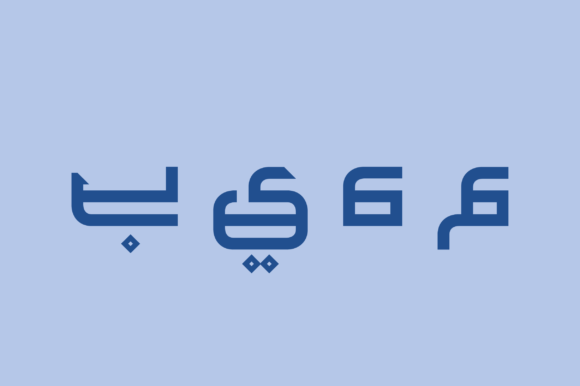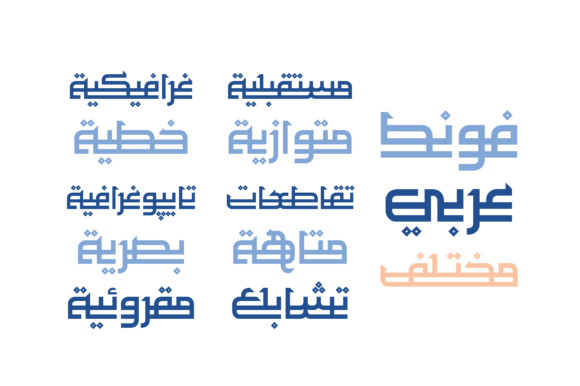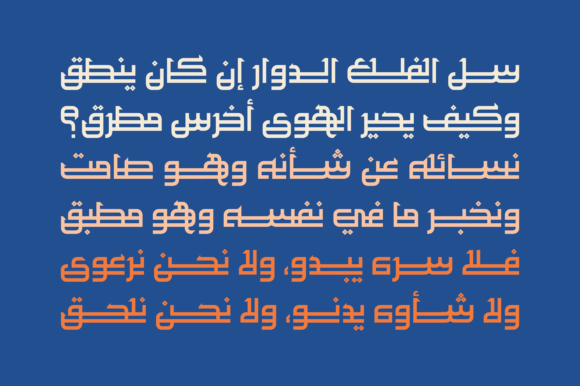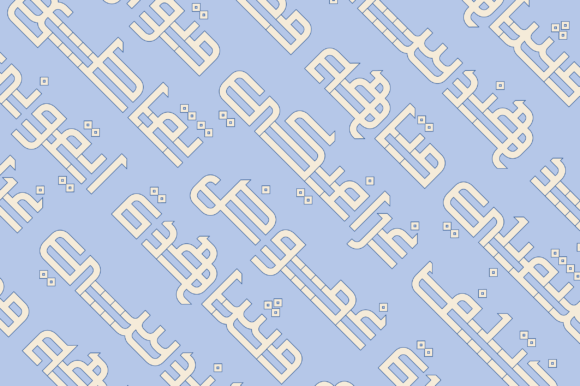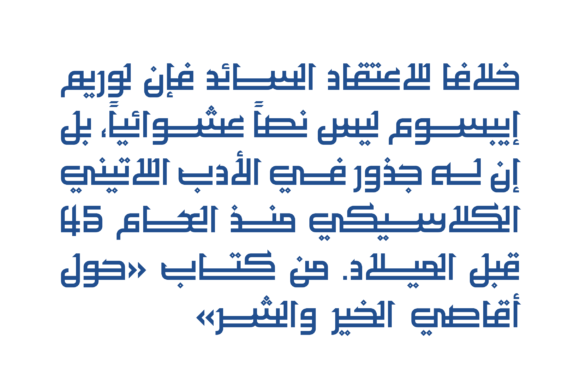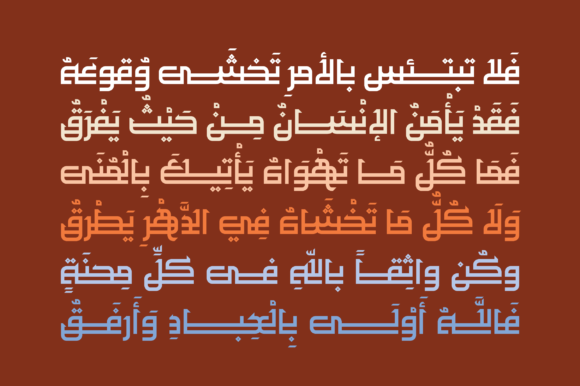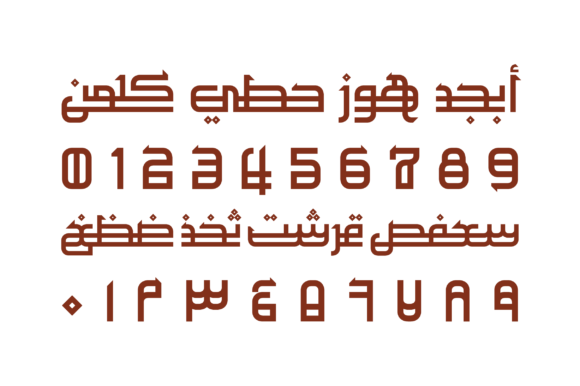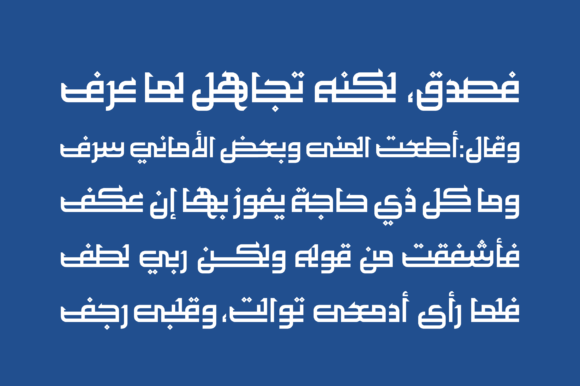
Maheeb (Arabic Font) Font
Maheeb, derived from the Arabic word for “Majestic,” is an exquisite Arabic display font that showcases the beauty of the Arabic script. With its dual baselines and carefully crafted letterforms, Maheeb captures attention and adds a touch of grandeur to any design.
The design of Maheeb is rooted in proportional letterforms with sharp terminals, resulting in a visually striking and harmonious typeface. The dual baselines add an interesting dynamic to the font, creating a sense of movement and elegance. This unique feature makes Maheeb particularly suitable for eye-catching headlines, titles, and decorative purposes.
The versatility of Maheeb allows it to be used across various applications. Whether it’s in print materials like posters, brochures, or book covers, or in digital mediums such as websites, social media graphics, or advertisements, Maheeb brings a touch of majesty and sophistication to the design.
When using Maheeb, it’s important to consider the readability and legibility of the Arabic script. The intricacy and ornate nature of the font may require careful attention to ensure clarity, especially when used in smaller sizes or longer blocks of text. It’s advisable to use Maheeb selectively for headlines or display purposes to fully appreciate its beauty and impact.
Maheeb opens up a world of design possibilities, allowing you to create visually stunning compositions that convey a sense of elegance and grandeur. Its usage can evoke a regal and luxurious atmosphere, making it suitable for projects that aim to communicate prestige, heritage, or a sense of cultural richness.
In conclusion, Maheeb is an Arabic display font that embodies the essence of its name, “Majestic.” With its dual baselines, proportionate letterforms, and sharp terminals, Maheeb adds an element of grandeur to any design. Explore the possibilities of this font in your print and digital projects, and let Maheeb elevate your designs to new heights of beauty and elegance.